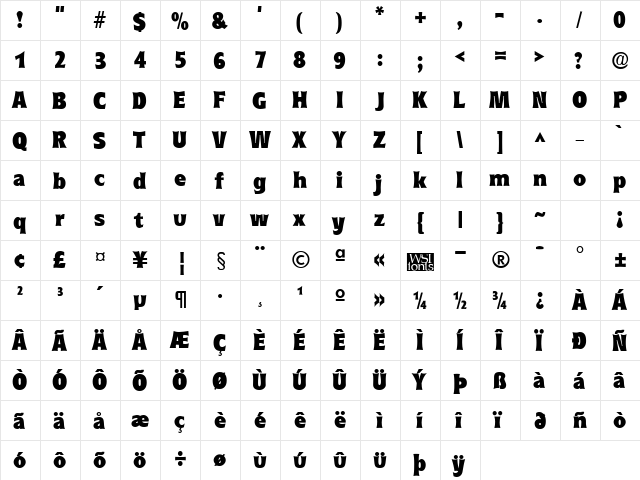
CurvacBlack Regular
Design Context for CurvacBlack Typeface
CurvacBlack is a composed and adaptable typeface that performs quietly and consistently across a wide range of design contexts.